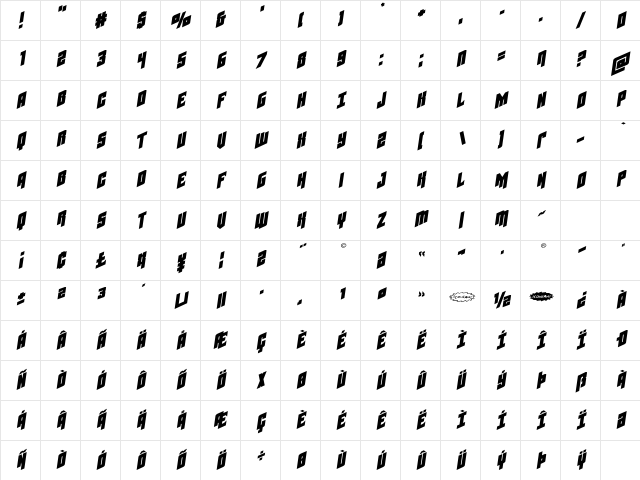
Galaxy Force Expanded Semi-Italic Expanded Italic Free Font
Galaxy Force Expanded Semi-Italic Expanded Italic
Style: Expanded Italic
Complete Galaxy Force Expanded Semi-Italic Expanded Italic glyph index. Displaying only characters natively supported by Galaxy Force Expanded Semi-Italic Expanded Italic font.
Design Context for Galaxy Force Expanded Semi-Italic
Galaxy Force Expanded Semi-Italic brings high-energy athletic personality to the page - its confident, muscular forms are built for impact. The slanted form adds forward momentum and visual energy.
Pro Tip: Use Galaxy Force Expanded Semi-Italic in all-caps headlines where its athletic energy can fully express itself. Pair with a solid, simple sans for supporting text.